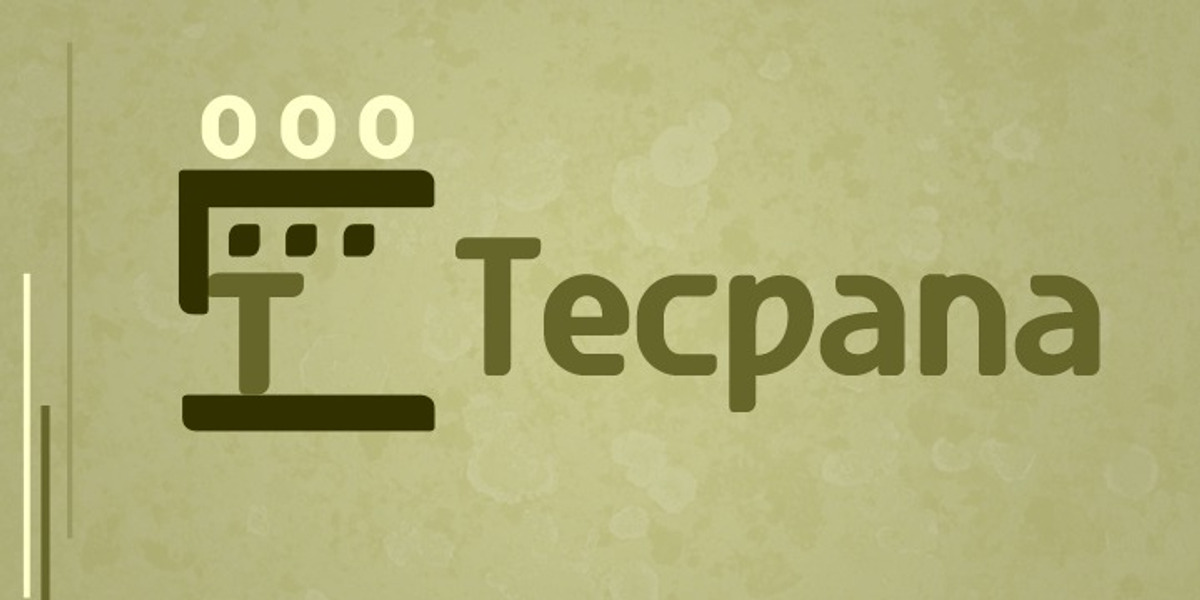
Tecpana
Tecpana is a single-line elliptical typeface. It works well in long texts, logos, headers, flyers, and printed materials. It comes in three weights and three italic styles.